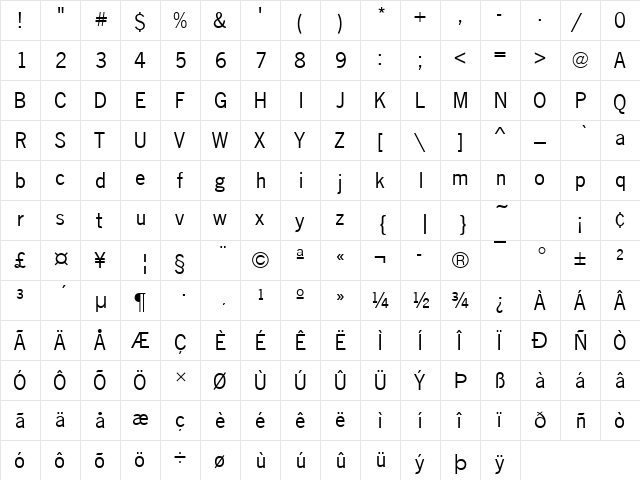
NewsGotNo2T Regular
Design Context for NewsGotNo2T Typeface
NewsGotNo2T offers clean, dependable letterforms without strong stylistic allegiance, making it a practical choice for designers who need flexibility.